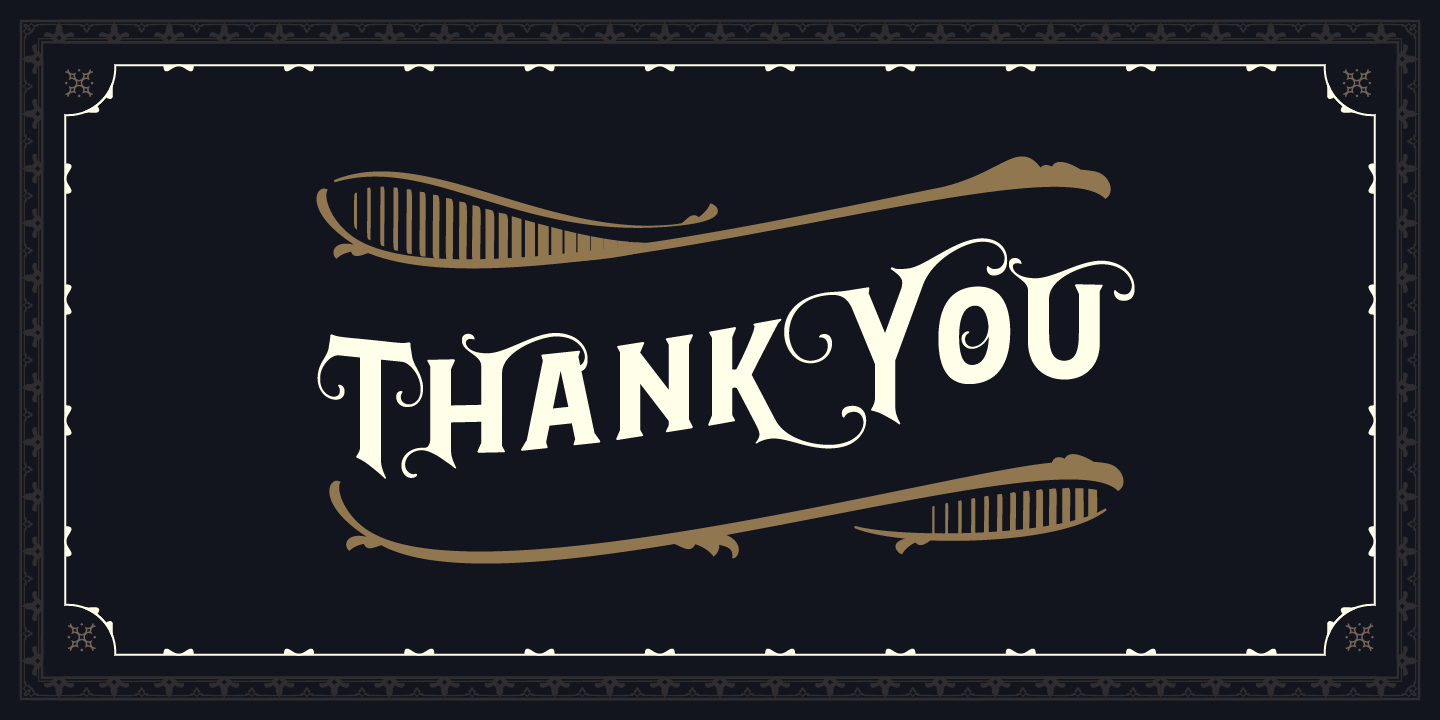
Bignord Vintage Free Download
Bignord Vintage Font Free Download
Bignord Vintage Font is a charismatic and robust display typeface that perfectly embodies the timeless charm of retro signage, classic advertisements, and old-school craftsmanship. Its sturdy, often distressed or textured forms and unmistakable nostalgic flair make it an excellent choice for projects aiming to evoke heritage, authenticity, and a powerful sense of history. Imagine it perfect for craft brewery labels, vintage apparel designs, classic car show posters, retro restaurant menus, unique merchandise, or striking headlines for historical documentaries and vintage-inspired blogs. This font excels at conveying energy, authenticity, and a bold, eye-catching charm. It’s particularly effective for brands and creatives who want their message to stand out with an undeniable sense of enduring quality and a timeless, adventurous personality.
What makes Bignord Vintage Font truly exciting is its ability to instantly transport viewers to a bygone era, reminiscent of hand-painted signs and traditional print. It often features strong, block-like strokes, subtle imperfections, or weathered textures that give each character a unique, almost tactile feel. This font isn't just about displaying text; it's about setting a mood, creating an atmosphere of retro authenticity and undeniable charm. It has a powerful ability to feel both incredibly robust and surprisingly versatile, making it an ideal tool for designers who want their work to convey strength, authenticity, and a truly memorable visual impact. Bignord Vintage Font Free Download empowers brands and creatives to project an image of unwavering confidence and classic allure.
The Bignord Vintage Font family often focuses on delivering its unique display style with optimal impact and character. You'll typically find it available in strong, impactful weights, which best showcases its distinctive design elements and adventurous nature. While it might not feature a wide range of weights or conventional italic styles, some versions could include stylistic alternatives for certain characters, ligatures, or unique decorative elements that further enhance its vintage and rugged appearance, allowing for even more customized typographic compositions. The comprehensive character set generally covers standard Latin characters, numbers, and a selection of punctuation, ensuring that Bignord Vintage Font is suitable for a wide array of creative and commercial applications where a bold and distinctive statement is desired. Its memorable and iconic presence ensures that any project featuring Bignord Vintage Font will leave a strong, lasting impression.